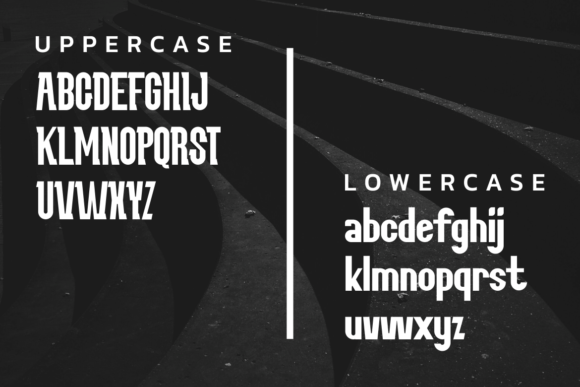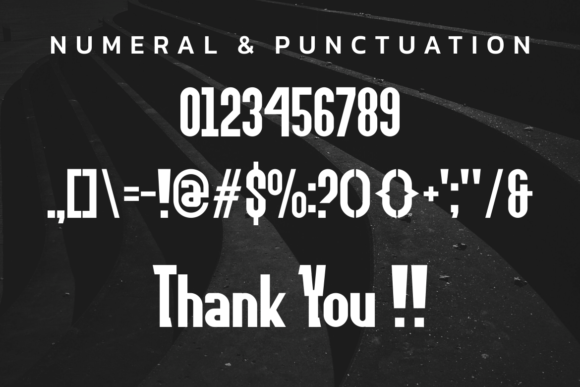
Introducing Domain Font: The Ultimate Sans Serif for Modern Designs
In the world of typography, fonts play a crucial role in conveying the tone and personality of a brand or design. For designers and crafters looking for a modern and sleek sans serif font, Domain Font is an excellent choice. With its smooth curves and clean lines, Domain Font is perfect for fashion branding, editorial designs, and a wide range of creative projects.
What is Domain Font?
Domain Font is a contemporary sans serif font designed to make a statement. Its unique blend of smooth curves and geometric shapes creates a visually appealing aesthetic that is both modern and sophisticated. The font’s clean lines and minimalist approach make it an excellent choice for designers looking for a versatile and easy-to-read font.
Key Features of Domain Font
- Smooth Curves: Domain Font’s smooth curves give it a distinctive and elegant look that sets it apart from other sans serif fonts.
- Modern Aesthetic: The font’s modern design makes it perfect for fashion branding, editorial designs, and other creative projects that require a sleek and contemporary look.
- Versatility: Domain Font is a highly versatile font that can be used for a wide range of applications, from digital designs to print materials.
- Easy to Read: The font’s clean lines and simple design make it easy to read, even at small sizes.
Use Cases for Domain Font
Domain Font is an excellent choice for a wide range of design projects, including:
- Fashion Branding: The font’s modern and sophisticated aesthetic makes it perfect for fashion brands looking for a sleek and contemporary look.
- Editorial Designs: Domain Font is an excellent choice for editorial designs, such as magazines, newspapers, and blogs, where a clean and easy-to-read font is essential.
- Digital Designs: The font’s versatility makes it perfect for digital designs, such as website headers, social media graphics, and mobile app interfaces.
- Print Materials: Domain Font can also be used for print materials, such as brochures, flyers, and posters, where a modern and eye-catching font is required.
Tips for Using Domain Font
To get the most out of Domain Font, here are some tips to keep in mind:
- Experiment with Font Sizes: Domain Font is a versatile font that can be used at a wide range of font sizes. Experiment with different sizes to find the one that works best for your design.
- Play with Font Colors: The font’s clean lines and simple design make it easy to use with a wide range of colors. Experiment with different colors to find the one that works best for your design.
- Use it for Headings and Body Text: Domain Font is an excellent choice for both headings and body text. Use it to create a cohesive and visually appealing design.
In conclusion, Domain Font is a modern and versatile sans serif font that is perfect for fashion branding, editorial designs, and a wide range of creative projects. With its smooth curves, clean lines, and easy-to-read design, Domain Font is an excellent choice for designers and crafters looking for a sleek and contemporary font. So why not give it a try and explore its endless possibilities?